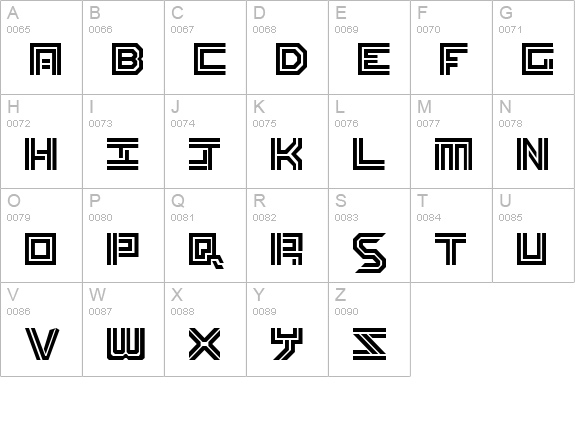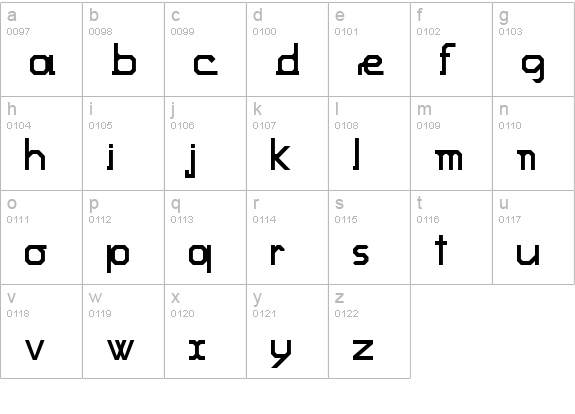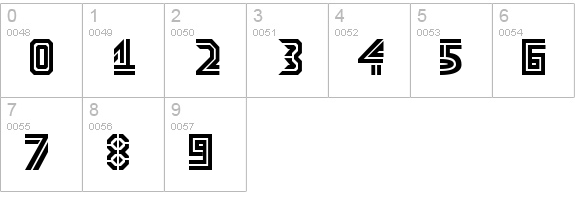
Introducing the mesmerizing Trackmania font, a true epitome of elegance and versatility. This striking typeface captures the essence of speed, agility, and adrenaline, making it the perfect choice for any design project that demands a dynamic touch. Trackmania font effortlessly combines sleek lines with bold curves, creating a seamless flow that commands attention. Its modern and futuristic appearance brings a sense of excitement and energy to any text, capturing the essence of the fast-paced world we live in. What sets Trackmania font apart is not just its stunning aesthetics, but also its incredible accessibility. It is proudly offered as a free download exclusively at FontsMarket.com, ensuring that designers, creatives, and enthusiasts from all walks of life can experience its captivating beauty without any restrictions. Whether you're designing a sports logo, creating eye-catching headlines, or crafting a cutting-edge website, Trackmania font will elevate your project to new heights. Its clean and legible characters guarantee clarity, while its unique design adds an extra layer of sophistication. Unleash your creativity and let Trackmania font take you on a thrilling typographic journey. Download this remarkable typeface today from FontsMarket.com, and embrace the freedom to create visually stunning designs that leave a lasting impression.